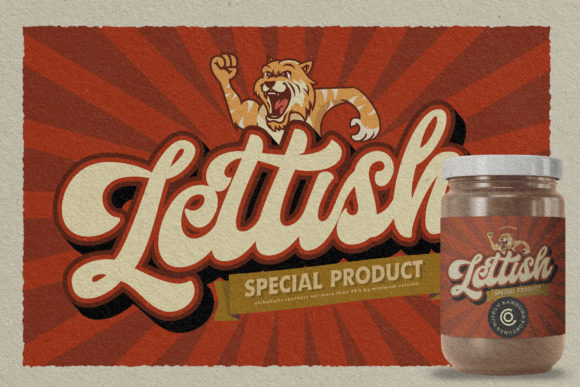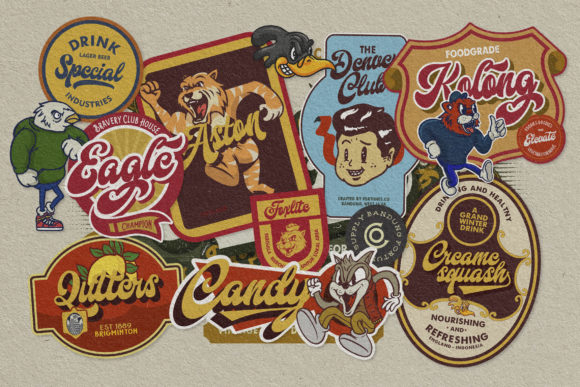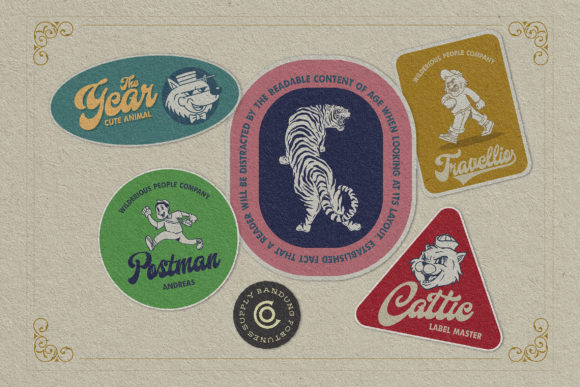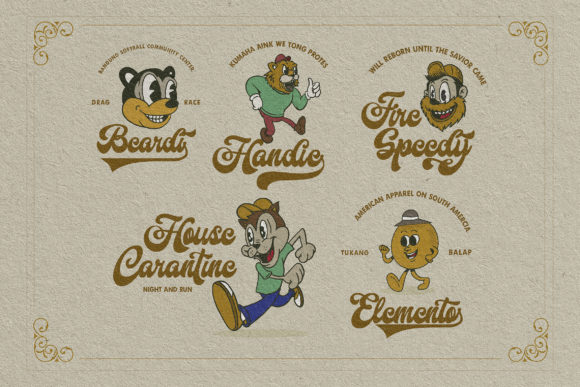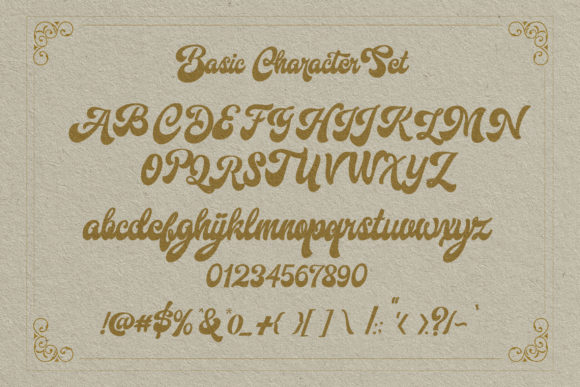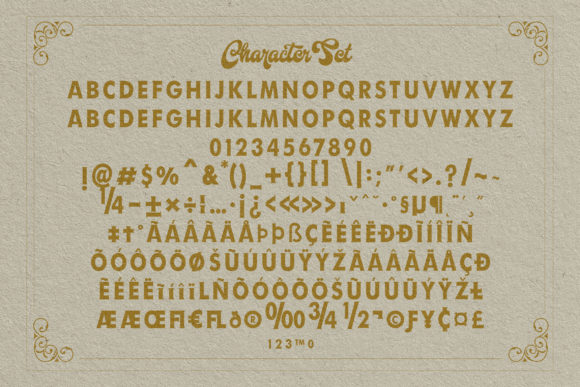
Introduction to Fouster Font
As designers, we’ve all been there – staring at a blank canvas, waiting for the perfect font to spark our creative vision. For me, it was a late-night brainstorming session, frantically searching for the perfect display font to add that extra oomph to my latest design project. And then, I stumbled upon Fouster Font – a bold, vintage styled display font that instantly captured my attention.
With its strong, confident, and dynamic feel, Fouster Font is the perfect addition to any creative project. Whether you’re working on a branding campaign, creating a social media graphic, or designing a digital product, this font is sure to add a touch of nostalgia and sophistication to your design.
Key Features of Fouster Font
- High-quality, unique font design ideal for creative projects
- Features a transparent background, making it perfect for use on various design resources
- Includes a wide range of characters, including uppercase and lowercase letters, numbers, and punctuation marks
- Perfect for use in various design projects, from logos and branding to typography and creative graphics
Honest Review: Fouster Font
As a designer, I’m always on the lookout for high-quality design resources that can elevate my creative projects. Recently, I stumbled upon the Fouster Font, and I’m excited to share my thoughts on it.
One of the things that works well with Fouster Font is its versatility. It comes in a variety of styles, from bold to script, making it a great addition to any project. ✨ The font is also available for free download, which is a major plus for designers on a budget. The transparent background feature allows for seamless integration with any background image or color.
Overall, I’m impressed with the Fouster Font. It’s a great addition to any designer’s toolkit, and I appreciate the transparent background feature. If you’re looking for a free, high-quality font for your creative project, Fouster Font is definitely worth checking out.
Transparent Background and High Quality
The Fouster Font is designed with a transparent background, making it perfect for creating high-quality designs with a clean and minimalist look. When using the font, make sure to set the background to transparent to maintain the font’s original design intent.
The Fouster Font is suitable for a variety of creative projects, including logos, brochures, business cards, and social media graphics. Its high-quality design and transparent background make it an excellent choice for designers looking to create visually appealing and professional designs.
Comparison to Fouster Font: Alegranza Font has a similar modern feel to Fouster Font but with a more refined and polished look. It’s a great alternative for designers who want to create high-quality designs without the need for extensive customization.
Yes, the Fouster Font supports transparent backgrounds, allowing you to easily integrate it into your design without any distracting background elements. This feature is especially useful for designers working on projects that require a clean and minimalist aesthetic.